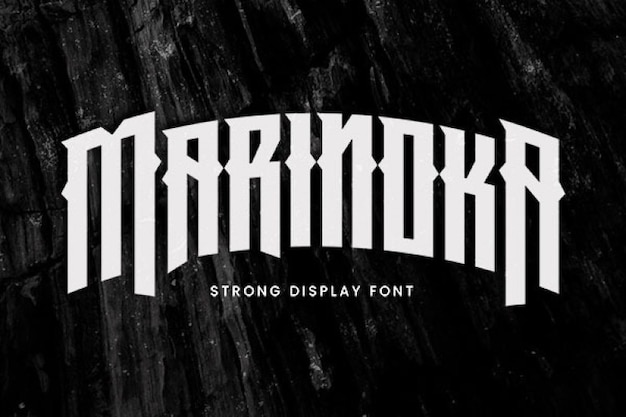
Marinoka Font
This imposing Marinoka font harbors secret powers yet to uncover. It has a strict, spirited personality with a somewhat defiant attitude. Its bold geometric strokes remind us of an underground culture which mixes punk and hippie styles. It adapts very well to t-shirts, logos and posters, specially if they are related to tattoo, piercings, sport or metal music. Download it from Freepik now!